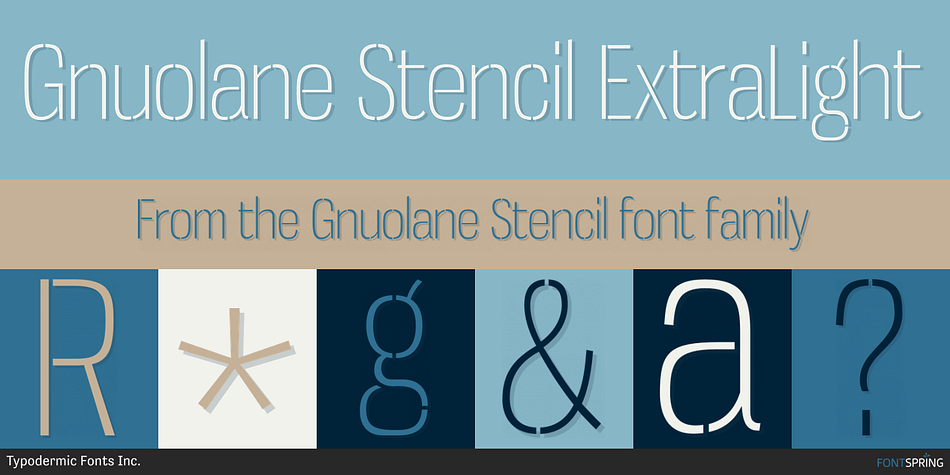
Gnuolane Stencil ExtraLight
Gnuolane Stencil is a stencil font family. This typeface has five styles and was published by Typodermic Fonts Inc.
Introducing Gnuolane Stencil, a captivating typeface that exudes sophistication and style. Inspired by the timeless elegance of grotesque models from the early twentieth century, Gnuolane Stencil is the perfect combination of classic and modern design.
With its superelliptical 1960s feel, Gnuolane Stencil will transport you back to an era of cool, sleek lines and understated elegance. The slim stencil design lends a serious and authoritative air to any message, making it the ideal choice for logos, headlines, and other high-impact designs.
But Gnuolane Stencil is more than just a pretty face. This versatile typeface comes in five different weights, allowing you to find the perfect balance of boldness and subtlety for your project. And if you’re looking for even more creative options, be sure to check out the plain version called Gnuolane and the playful, bouncy variation known as Gnuolane Jump.